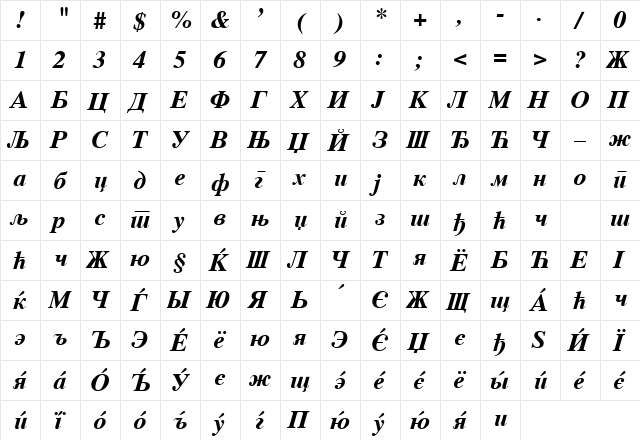
C_Times Bold Italic
C_Times offers clean, dependable letterforms without strong stylistic allegiance, making it a practical choice for designers who need flexibility. The dynamic lean of this cut emphasises speed and emphasis in any layout. The heavy weight commands attention and anchors typographic hierarchies.
Pro Tip: Try C_Times for annotation and caption copy alongside an upright companion — the contrast in angle creates a dynamic but ordered typographic system.